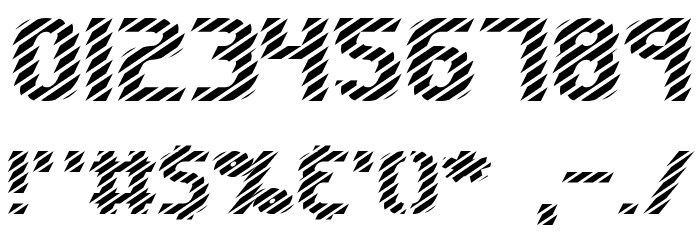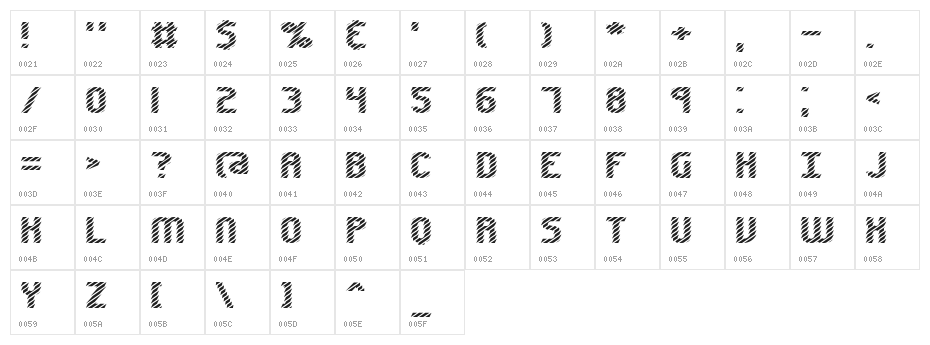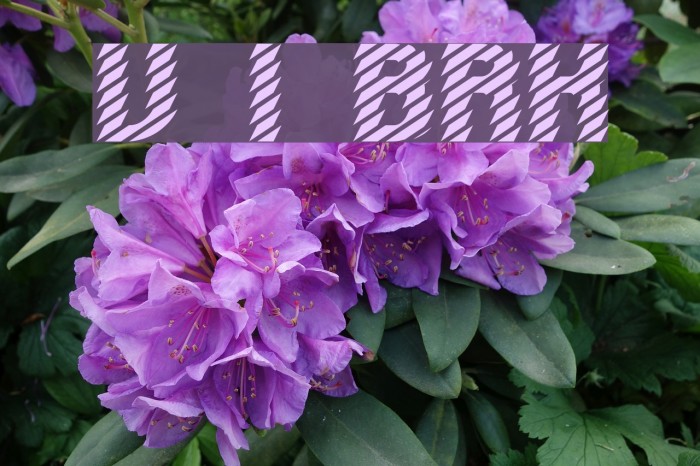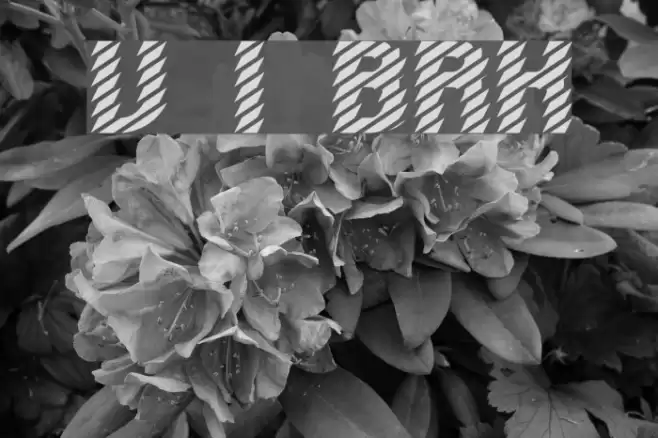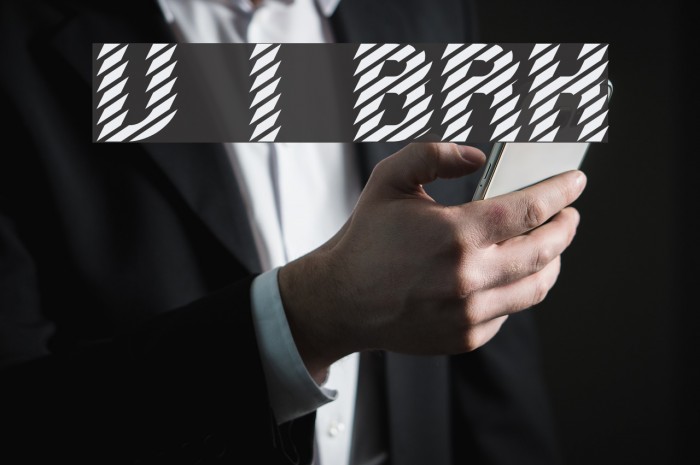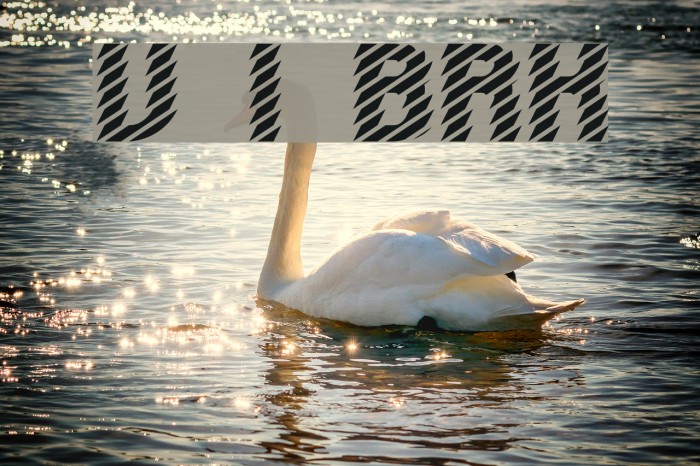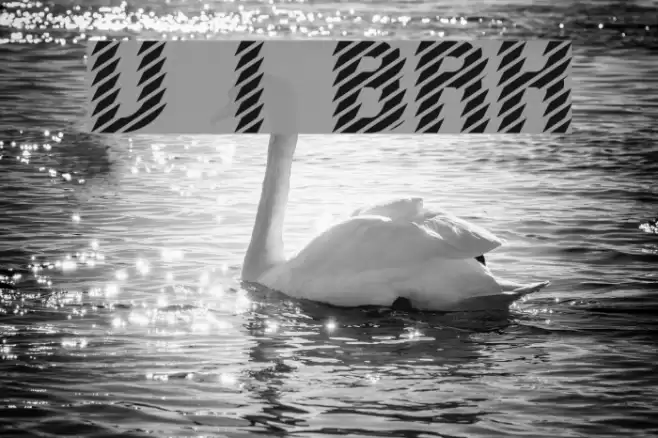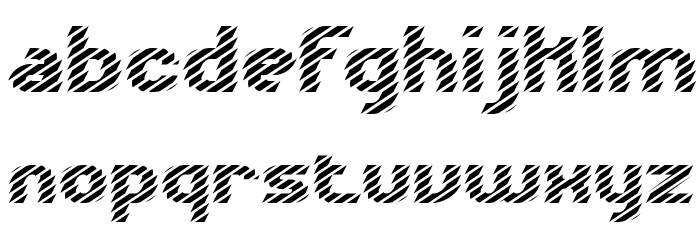
Volatile 1 BRK Font
Volatile 1 BRK Description
This font features a bold, modern design with a unique diagonal stripe pattern running through each character, giving it a dynamic and energetic appearance. The uppercase and lowercase letters maintain a consistent style, with rounded edges and a slightly condensed form. The numerals and special characters follow the same striped pattern, ensuring uniformity across all glyphs. This font's distinct style makes it stand out, ideal for projects that require a bold statement or a contemporary look. Its design is both eye-catching and versatile, suitable for various creative applications.